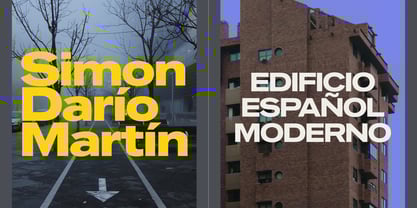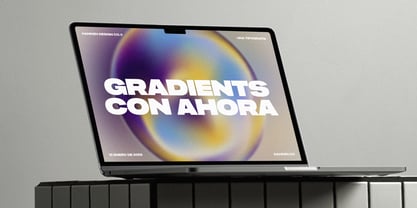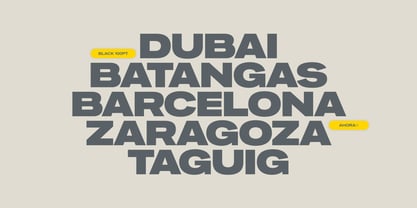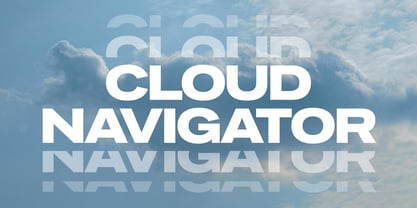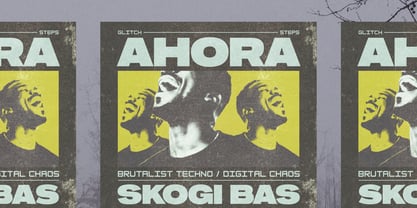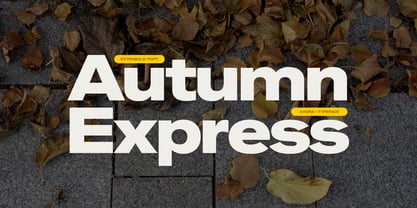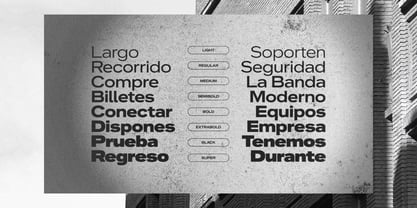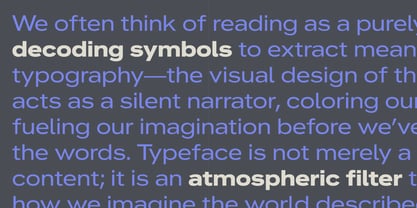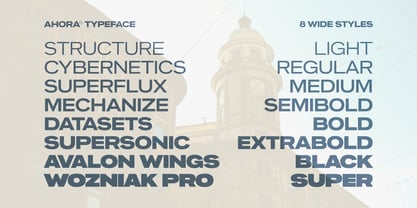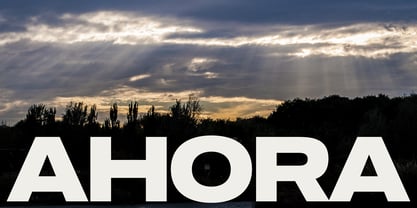
The Ahora Font Family was designed by Alfredo Marco Pradil and published by Hanken Design Co.. Ahora contains 8 styles and family package options. More about this family
Ahora is a wide-stance sans-serif built for impact. It mixes the straightforward utility of industrial signage with a modern, cinematic width. The family features 8 weights; the lighter styles are clean and architectural, while the heavy weights turn words into solid graphic blocks. It’s a typeface for when you need the text to do the heavy lifting—perfect for bold editorial spreads, tech branding, or wayfinding systems.